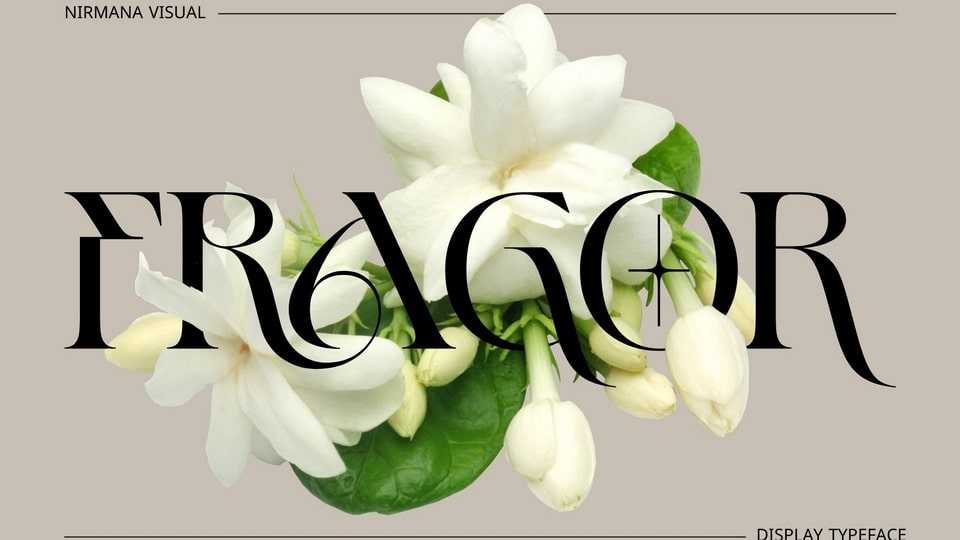
Download Fragor font, a sophisticated display serif typeface inspired by Art Nouveau design era. Fragor offers beautiful typographic harmony for a diversity of design projects, including logos and branding, social media posts, advertisements and product designs.